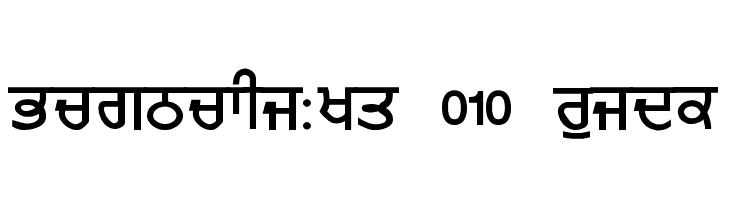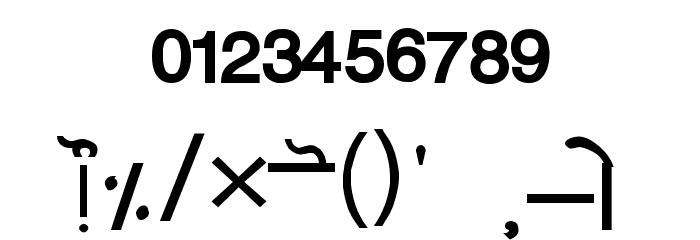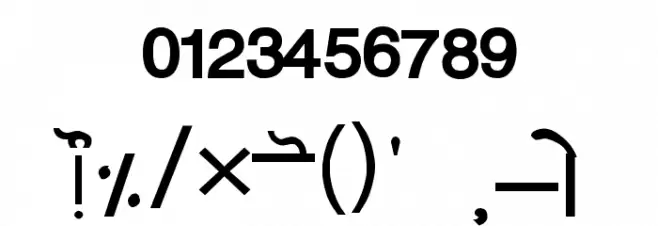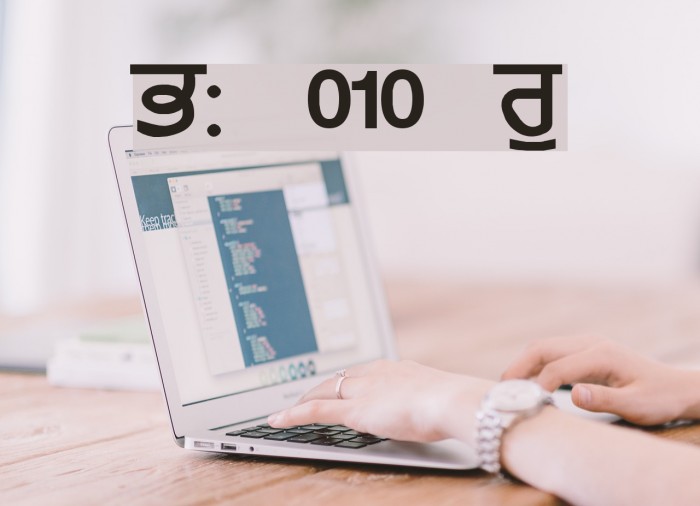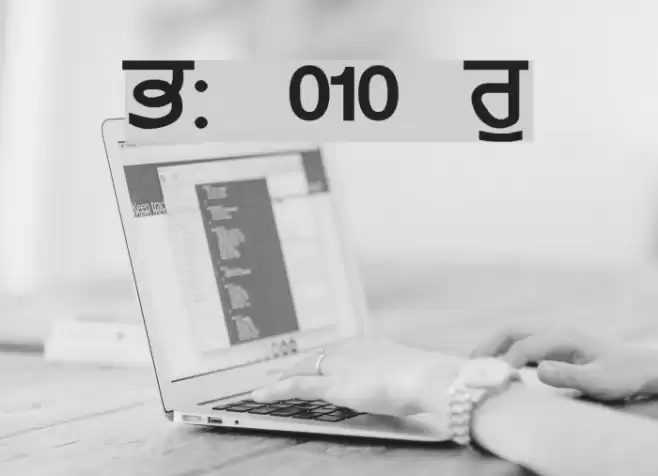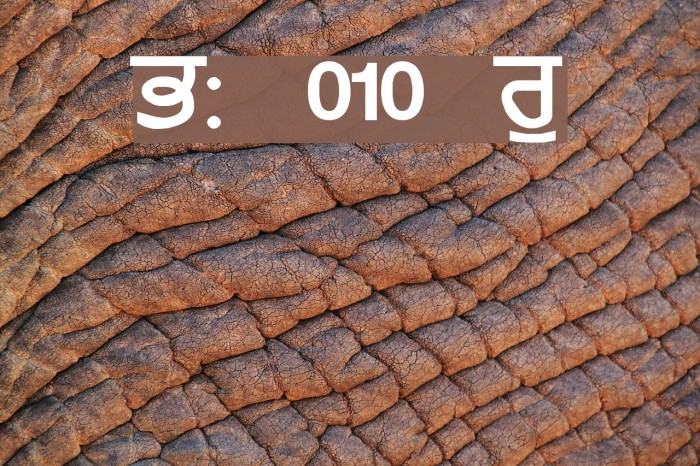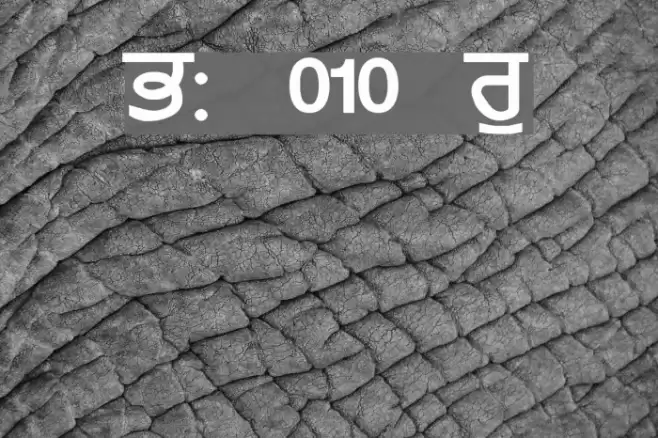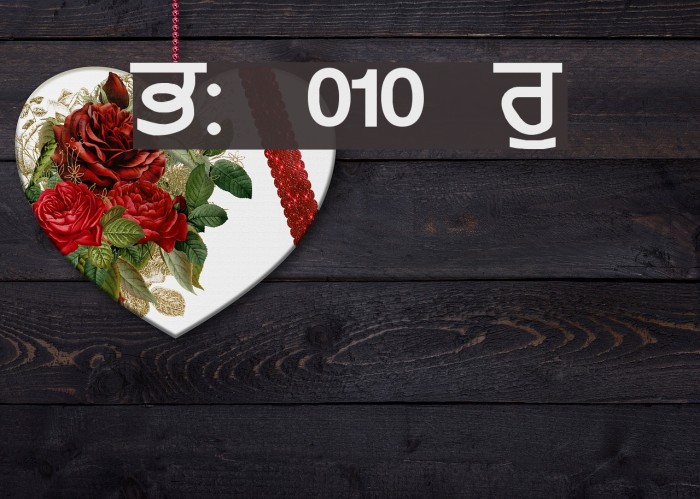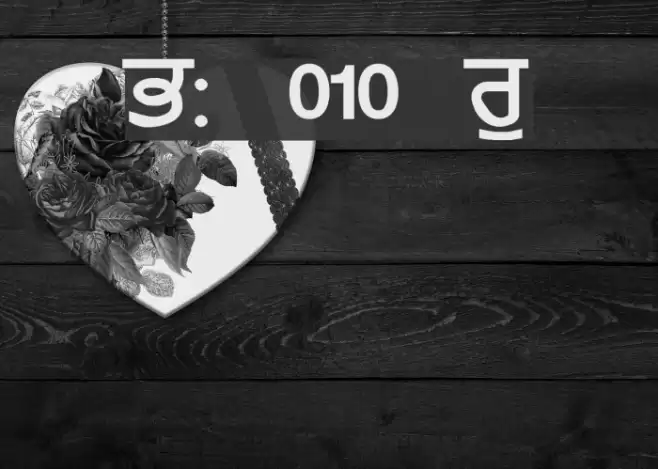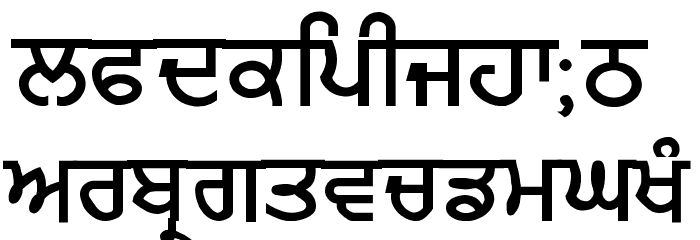
GurmukhiLys 010 Wide Font
| Anwendungsfall | Headlines, Body text, Educational materials |
| Vorgeschlagene Projekte | Ideal for educational materials, signage, digital content, and print media that require clear and accessible Gurmukhi script. |